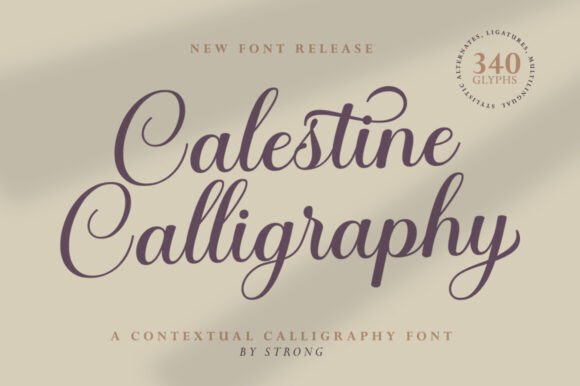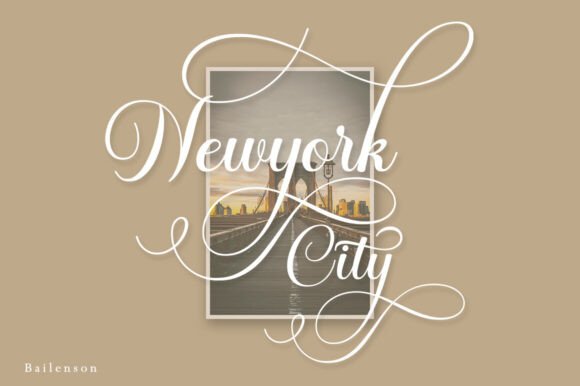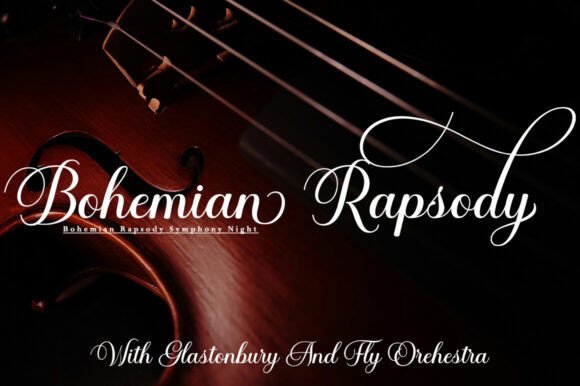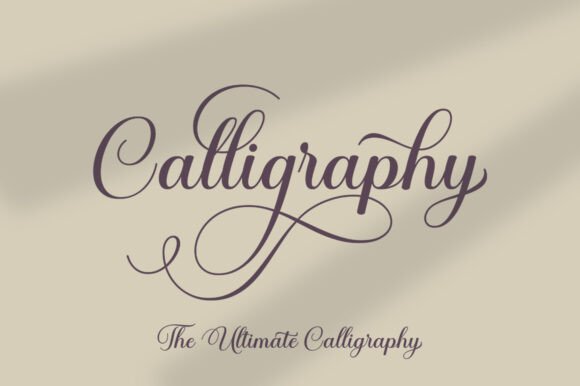
Calestine Calligraphy Font
About the Calestine Calligraphy Font
Crafted with precision, the Calestine Calligraphy Font is ready to bring your ideas to life. Calestine Calligraphy is a delicate and elegant handwritten font. Its distinct and well balanced letters make this font a masterpiece. Fall in love with its incredibly versatile style and use it to create spectacular designs!
Calestine Calligraphy excels in applications requiring a touch of refined elegance, such as wedding invitations, logos for luxury brands, or short, impactful headlines. Its delicate nature makes it less suitable for body text or lengthy paragraphs where readability is paramount. Avoid using it in UI design or situations demanding high legibility at small sizes.
Pair Calestine with a clean sans-serif like Lato for a modern contrast, or a classic serif like Garamond for a more traditional feel. A geometric sans-serif such as Montserrat can also provide a pleasing balance, grounding the calligraphic flourish.
The font’s core personality is sophisticated and graceful, conveying a sense of understated luxury and charm. It is ideal for projects that aim to project a refined, high-end image.
Calestine Calligraphy Font Usage Examples
Calestine Calligraphy Font Example